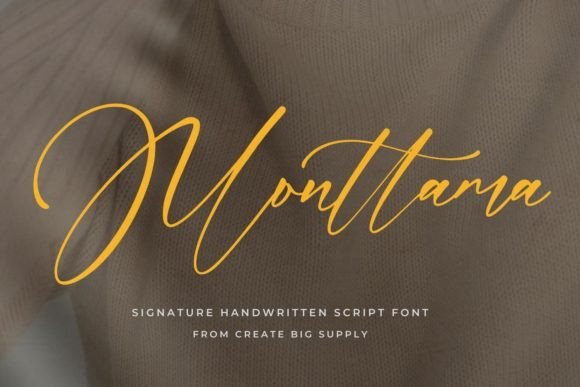
Journey into the world of Monttama, a script signature handwriting font that ignites your creativity, transforming your designs into captivating works of art. Indulge in its timeless elegance, meticulously crafted to elevate your projects to new heights. Monttama's graceful curves and sweeping strokes bring a touch of authenticity and charm to any creation, making it the perfect choice for crafting unique signatures, logos, brand identities, and heartfelt messages.
Embrace the versatility of Monttama, effortlessly flowing from casual to formal settings. Its diverse character set, including uppercase and lowercase letters, numbers, punctuations, multilingual support, ligatures, and PUA encoding, empowers you to communicate your ideas in a myriad of languages and styles. Unleash your creativity with Monttama's limitless possibilities.
Experience the magic of Monttama as it effortlessly blends with various design aesthetics, enhancing your projects with a touch of sophistication and charm. Its natural and fluid style seamlessly integrates into logos, branding, invitations, social media graphics, and any project yearning for a personal touch. Each letter dances across the page, captivating your audience with its elegant presence.
Don't settle for ordinary fonts; embrace the extraordinary with Monttama. Its carefully crafted design breathes life into your projects, evoking emotions and leaving a lasting impression. Experience the power of Monttama, the ultimate font for those seeking to make a statement and leave an indelible mark on the world.